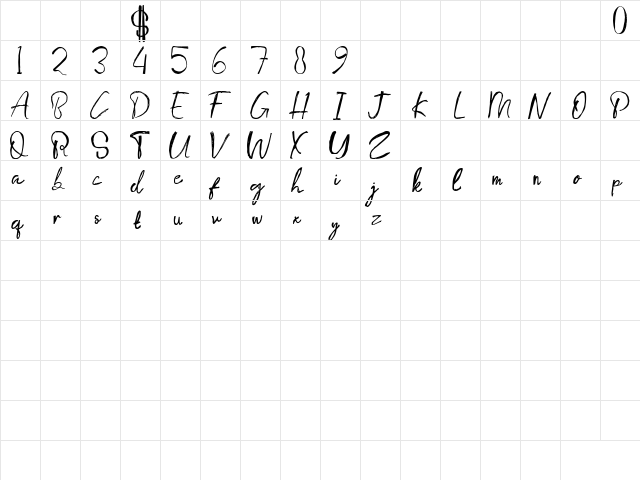
Porto Bianco Brush Demo Regular
Design Context for Porto Bianco Brush Demo Typeface
Porto Bianco Brush Demo flows with the natural rhythm of handwritten lettering, making it ideal for designs that call for warmth and personal expression.
Font Pairing: Combine Porto Bianco Brush Demo with a simple geometric sans for maximum contrast — the tension between flowing curves and clean structure is a classic typographic pairing.
Pro Tip: Use Porto Bianco Brush Demo for short runs of text — names, titles, or taglines. Extended body copy in script faces tires the eye quickly.